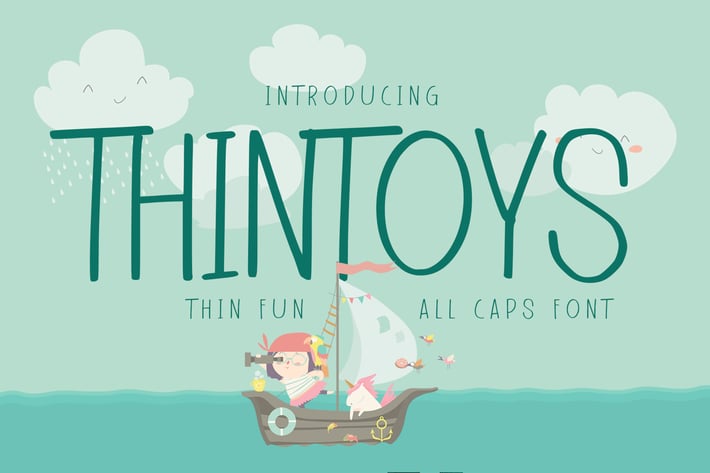
Thintoys - Fun All Caps Font
Hello Everyone, Introduce our new collection Thintoys - Fun All Caps Font and display for posters, branding projects packaging, logotype and more.
Thintoys font with strong and challenging nuances. very suitable for the title, typography , Logo, Poster, magazines, brochures, packaging,Websites and much more for your design needs, making your designs more modern and professional